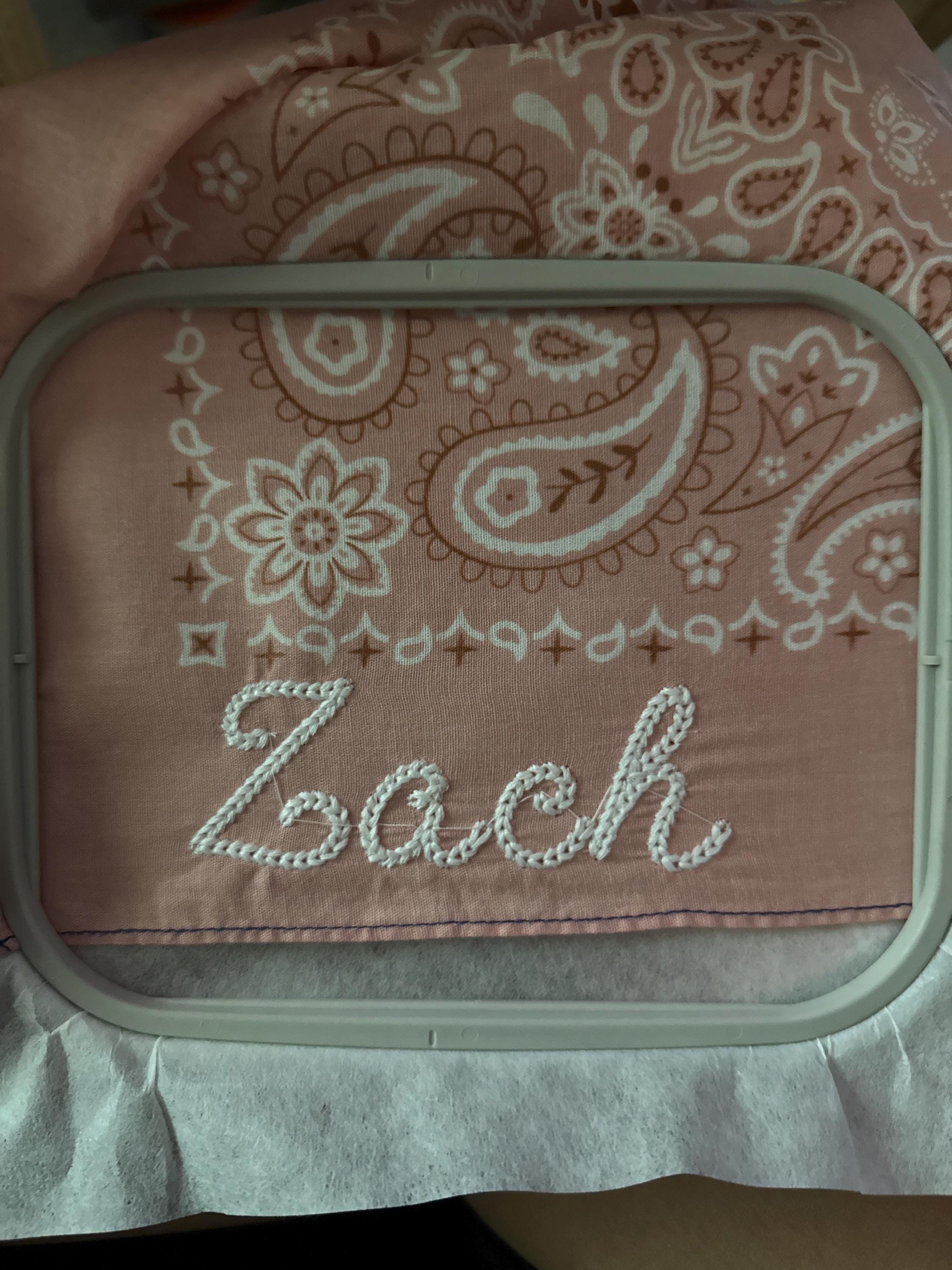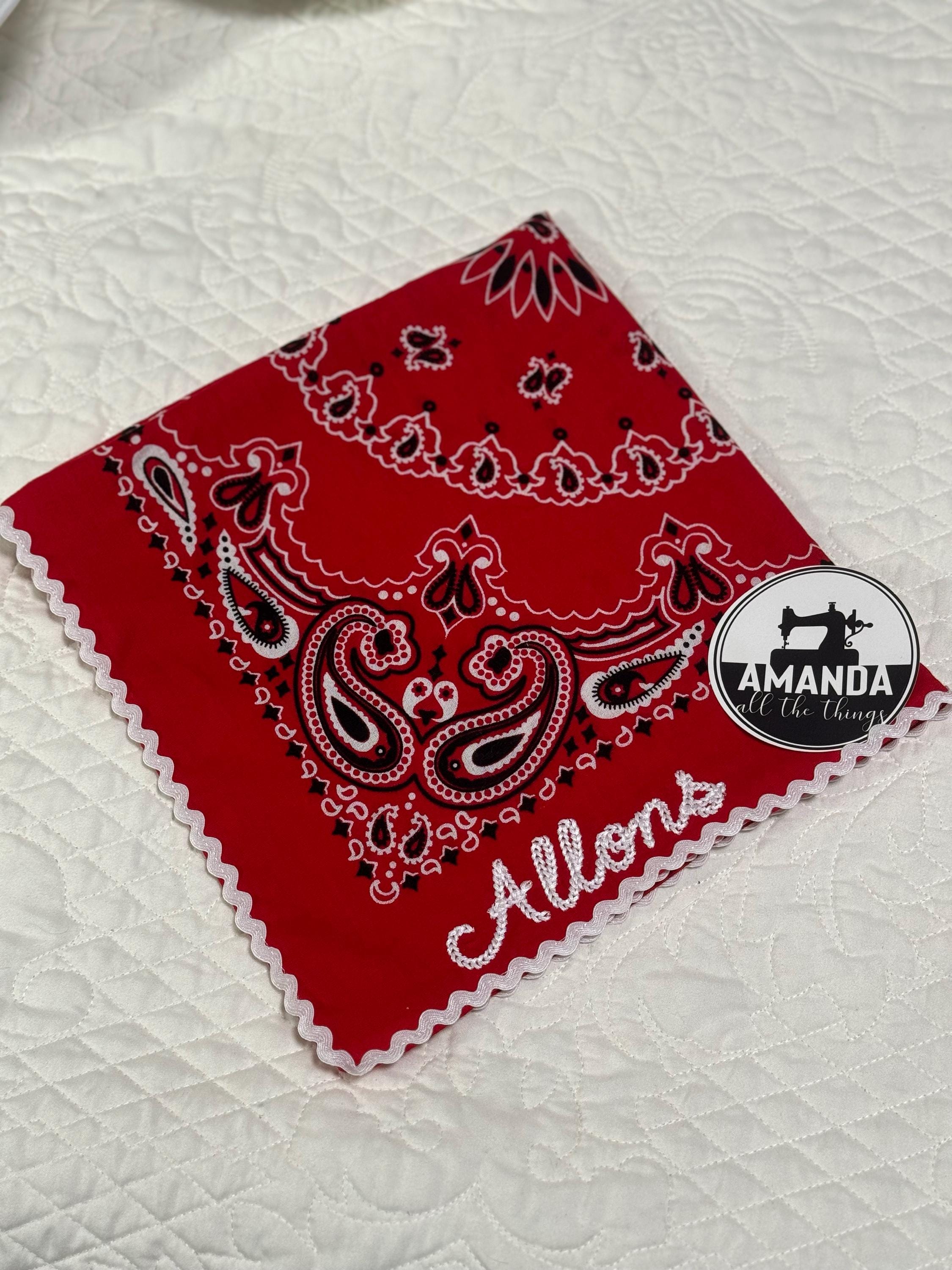
Thick dense Chain stitch bold handwritten FONT machine embroidery designs alphabet letters knit sweater handmade effect chain name, BX included
Entire alphabet uppercase and lowercase letters, numbers, and punctuation.